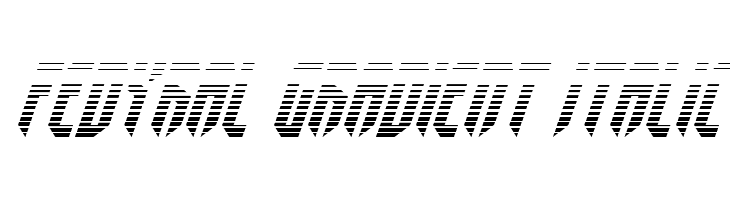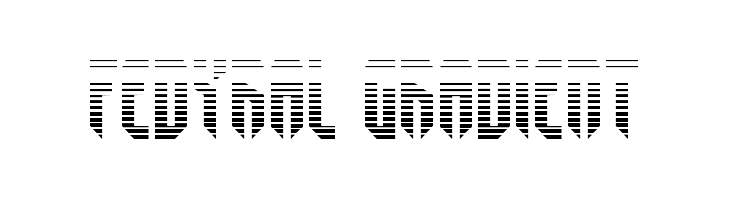
A modern, geometric font with a sleek and clean design.
A bold, geometric font with angular lines and a modern, industrial feel.
A geometric, art deco-inspired font with clean lines and angular shapes.
A geometric, art deco-inspired font with bold, angular lines and sharp edges.
A bold, geometric font with an Art Deco influence, featuring sharp angles and smooth curves.
A bold, geometric typeface with Art Deco influences and modern flair.